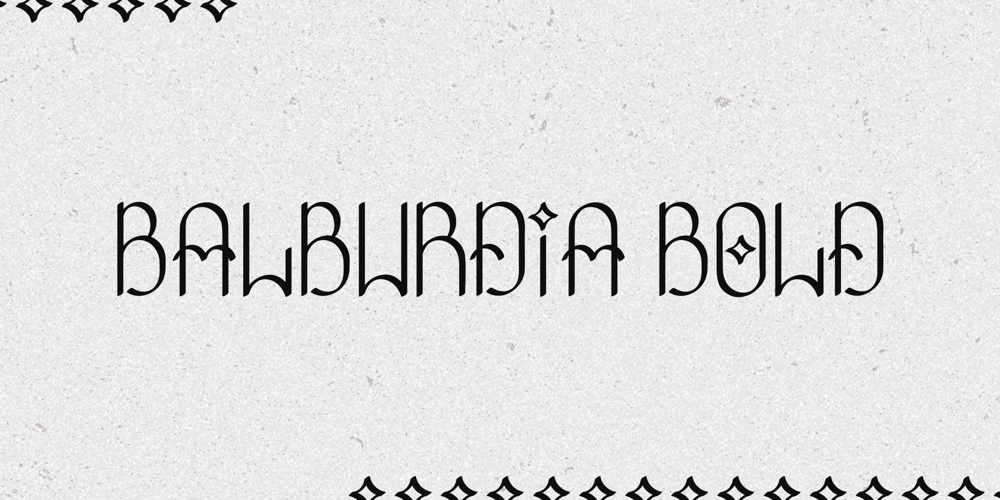
Balburdia Font Family was designed by Renato Matos and published by Matosrs. Balburdia contains 1 styles and family package options. Balburdia is a font based in the street art letters of Brazil.Inspired by “pixação” from the brazilian cities of Rio de Janeiro and São Paulo, Balburdia can translate the street culture and add a little extra to your designs.Balburdia can be used for art, branding or fashion itens that contain this theme.